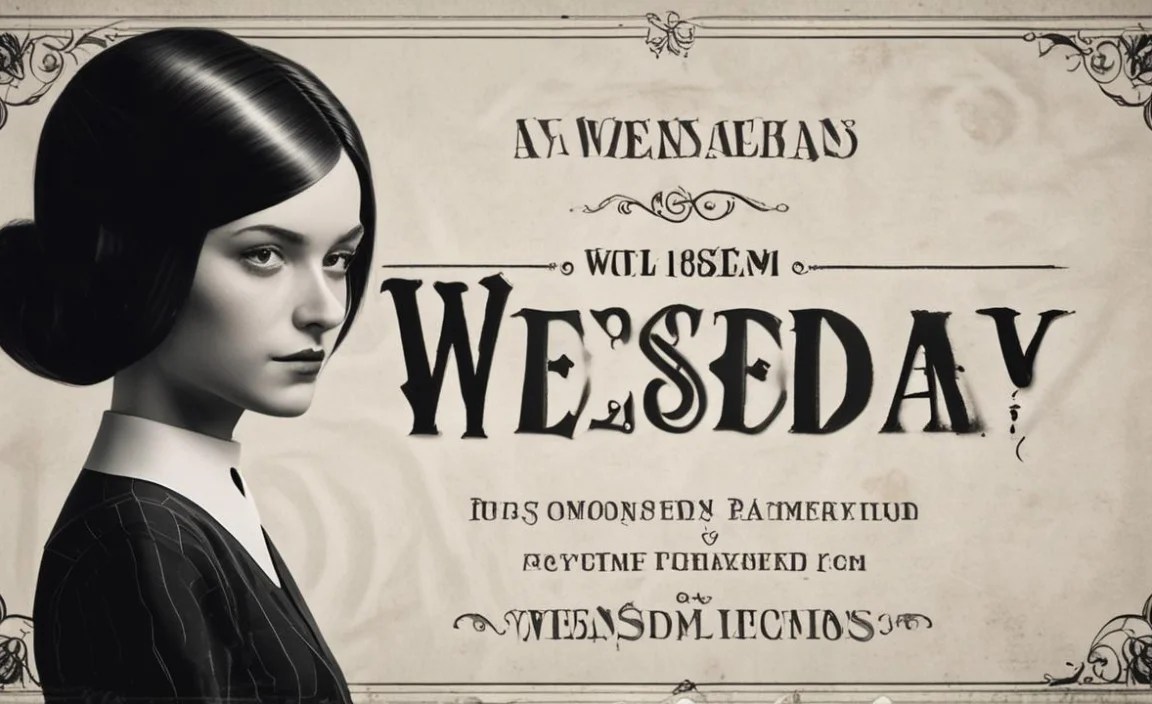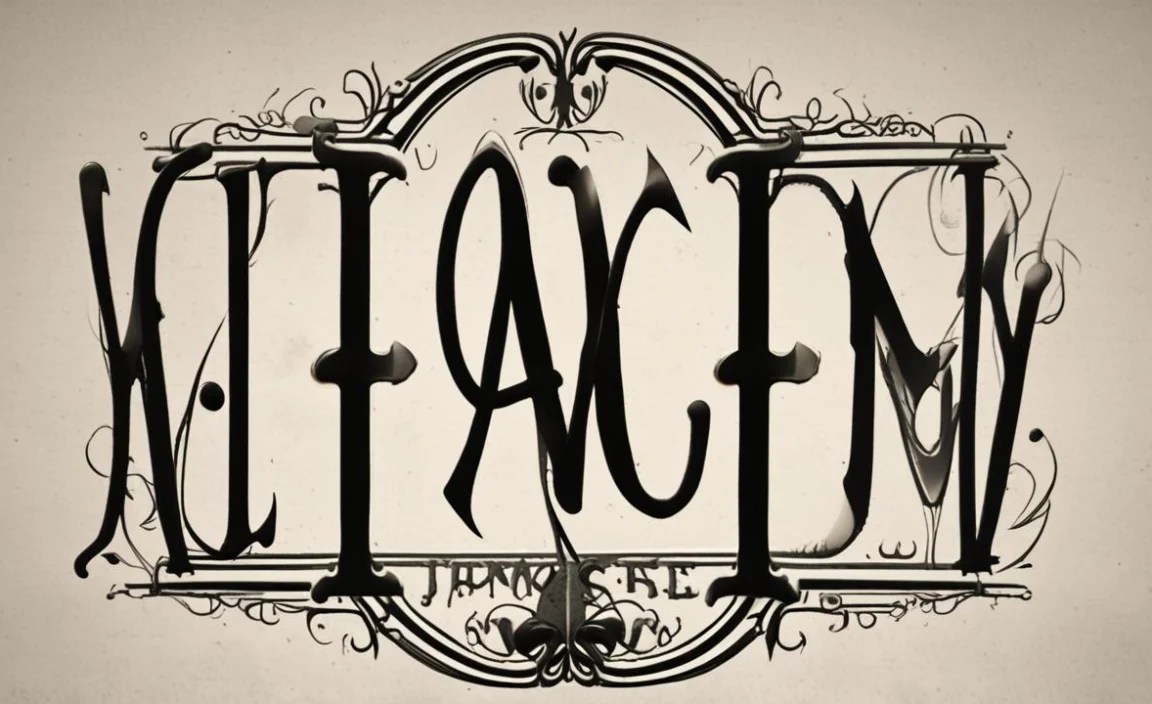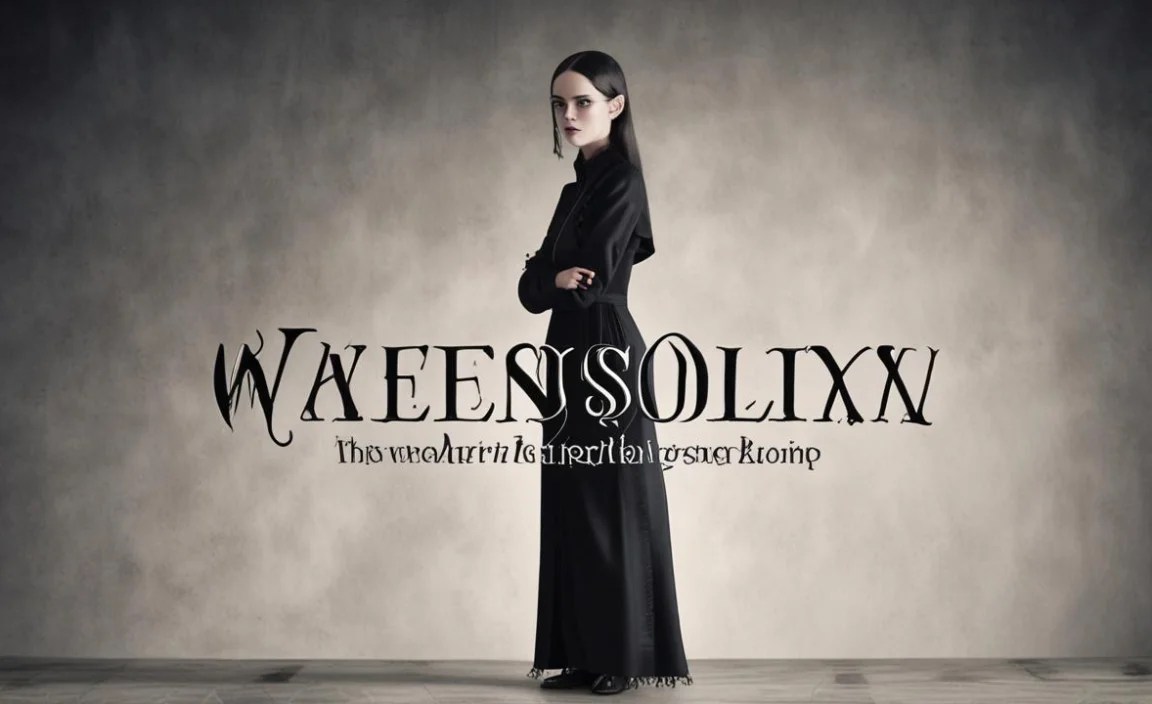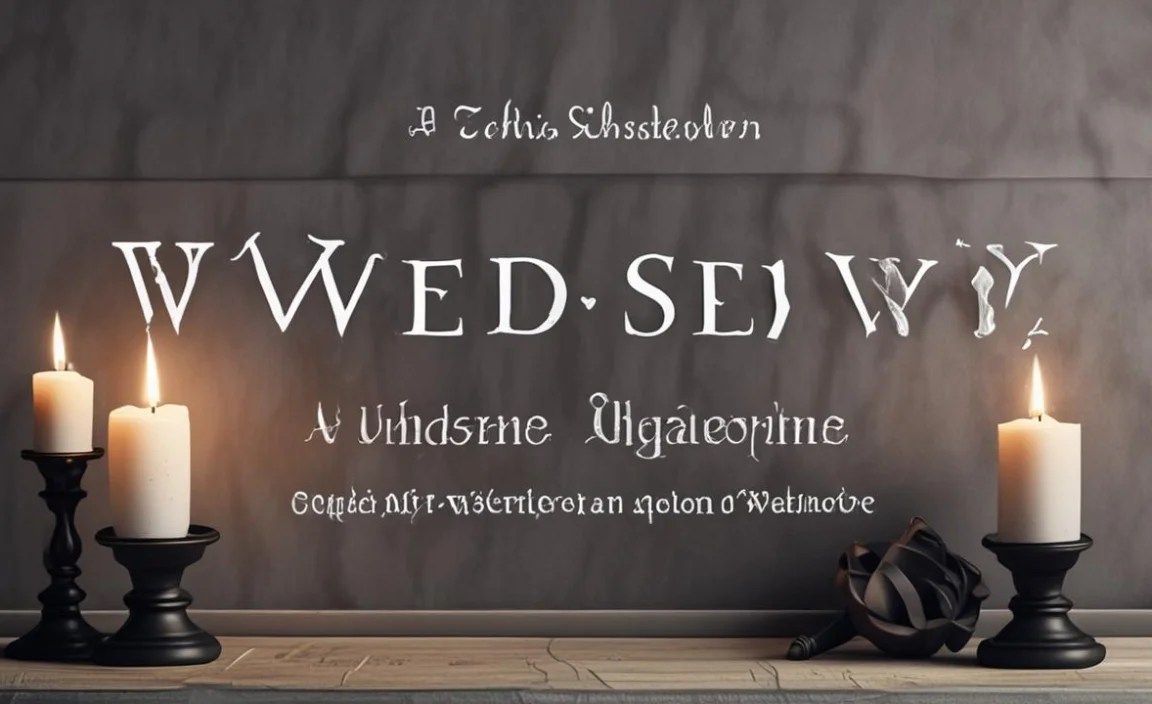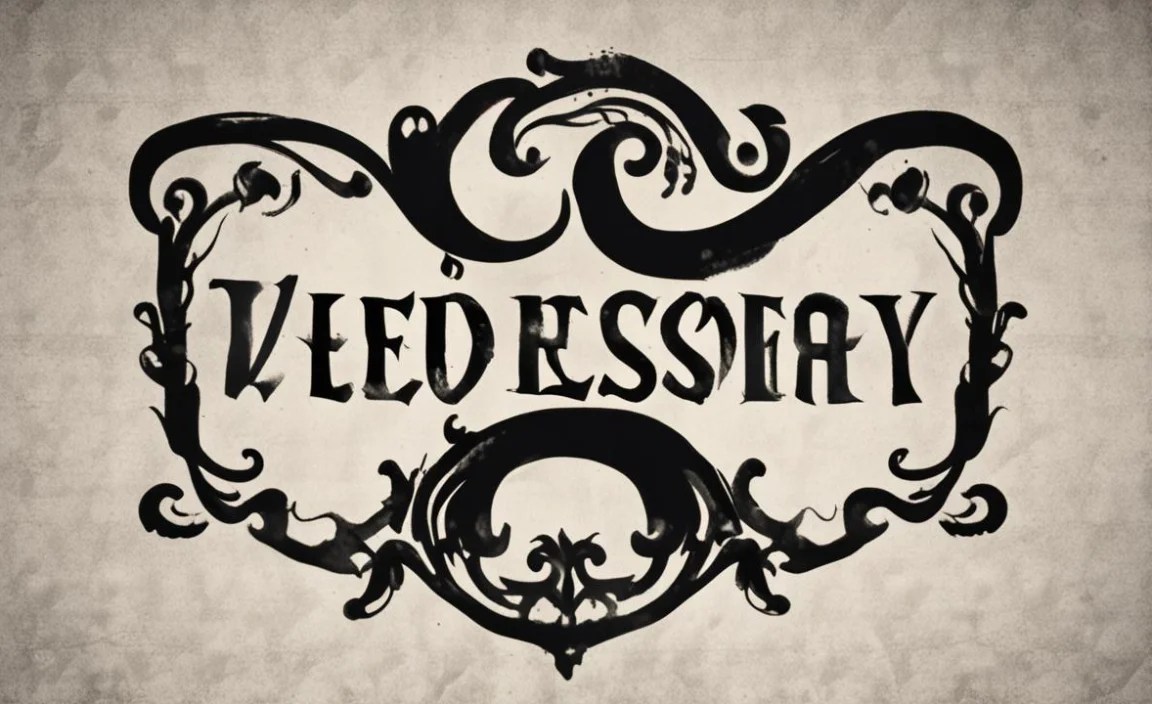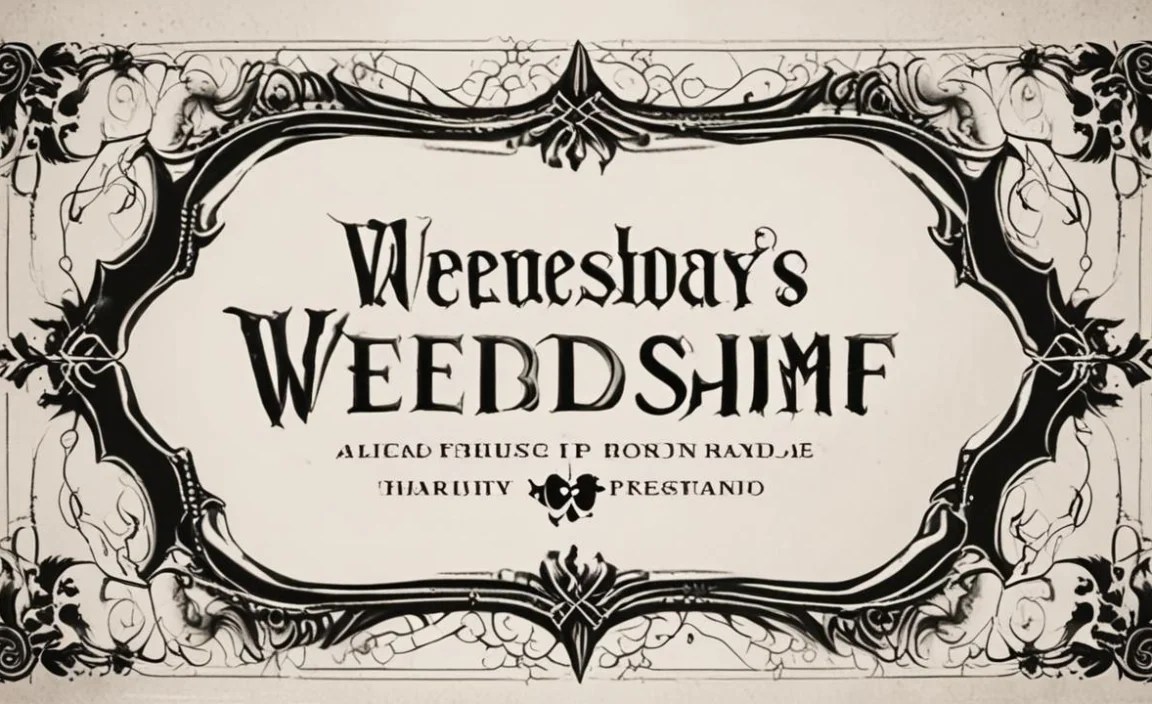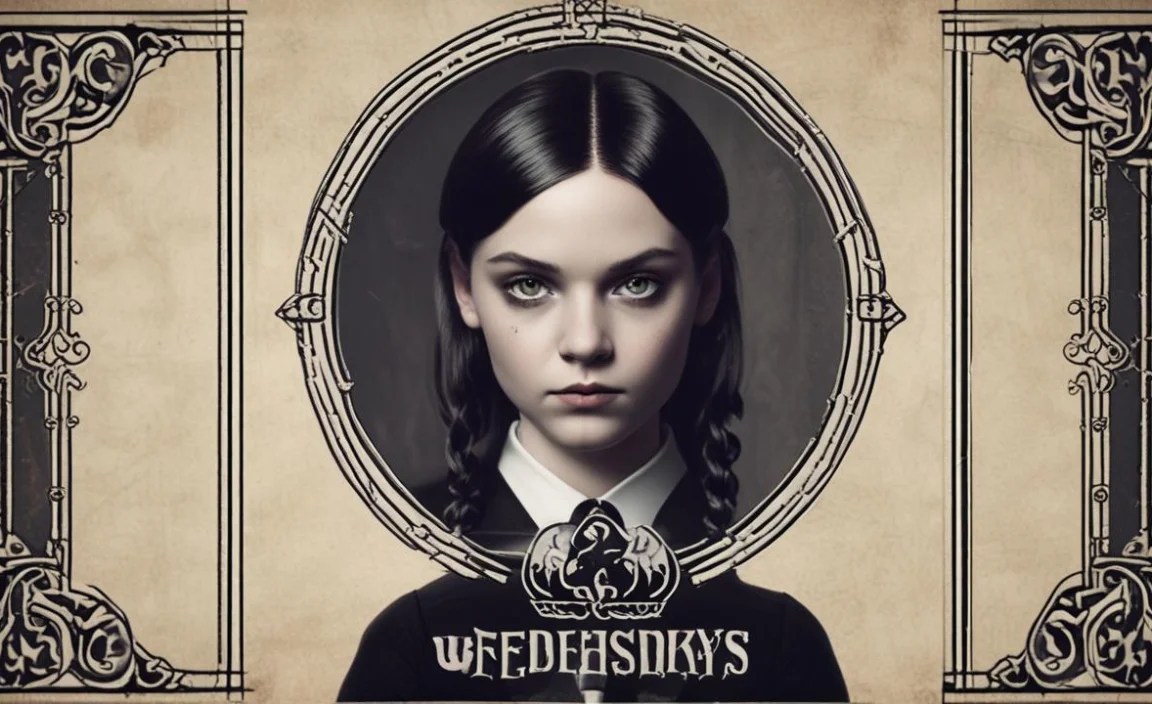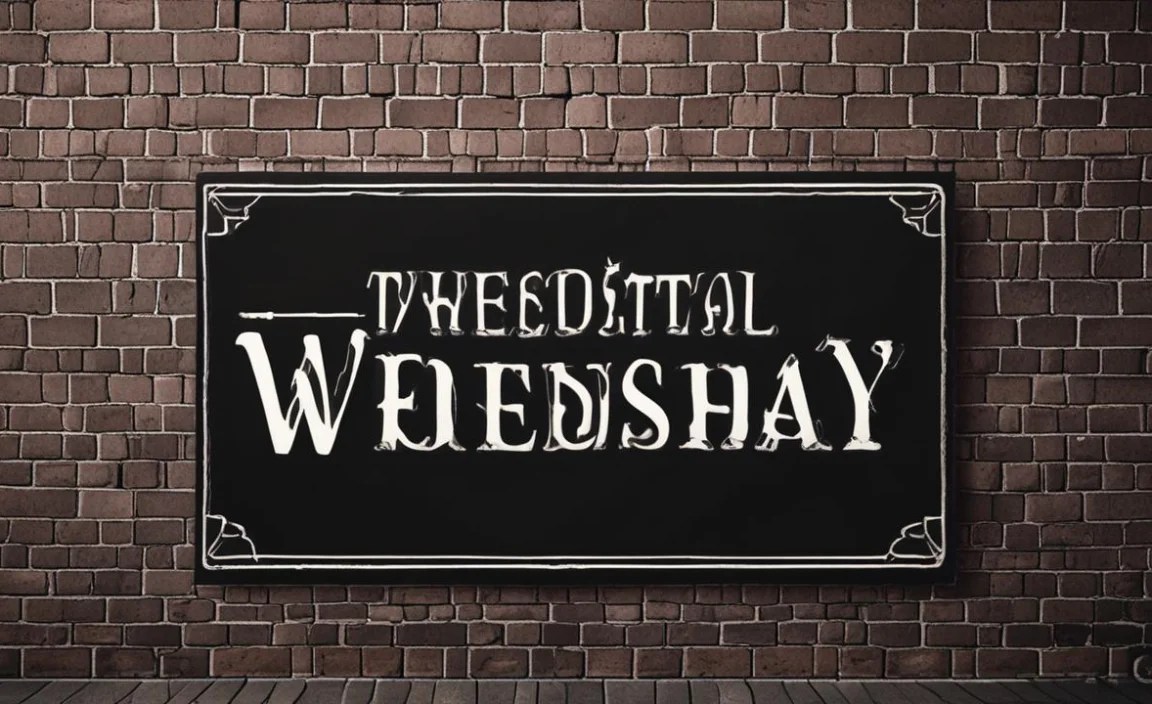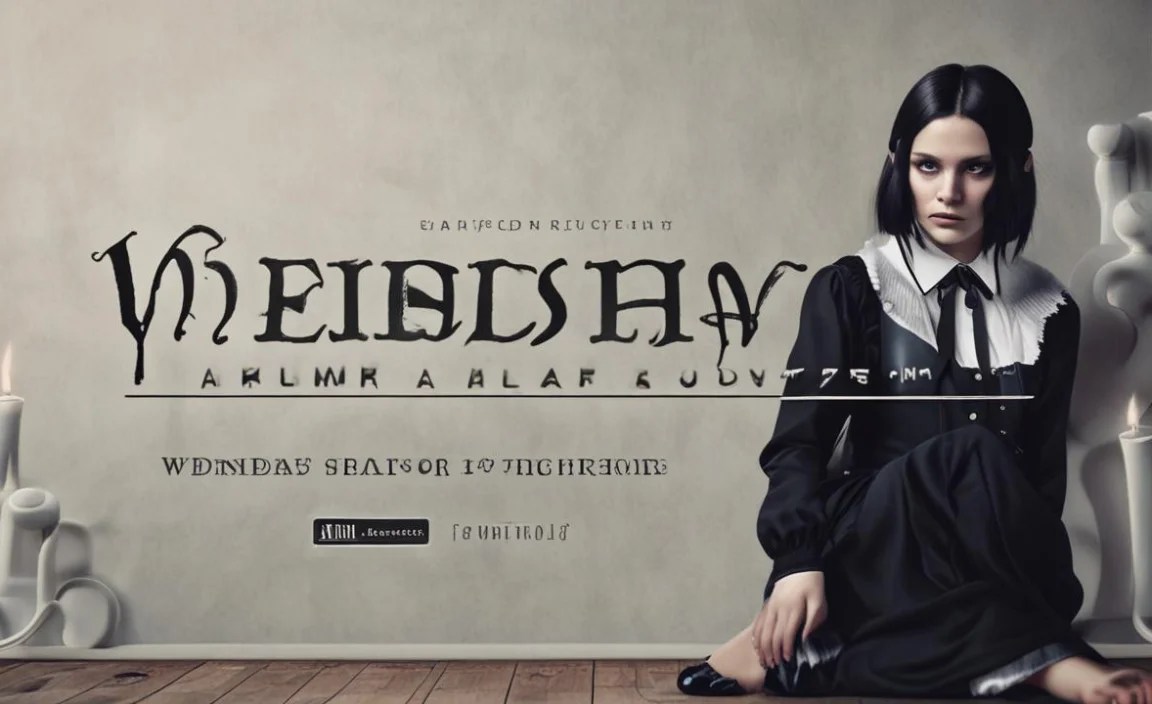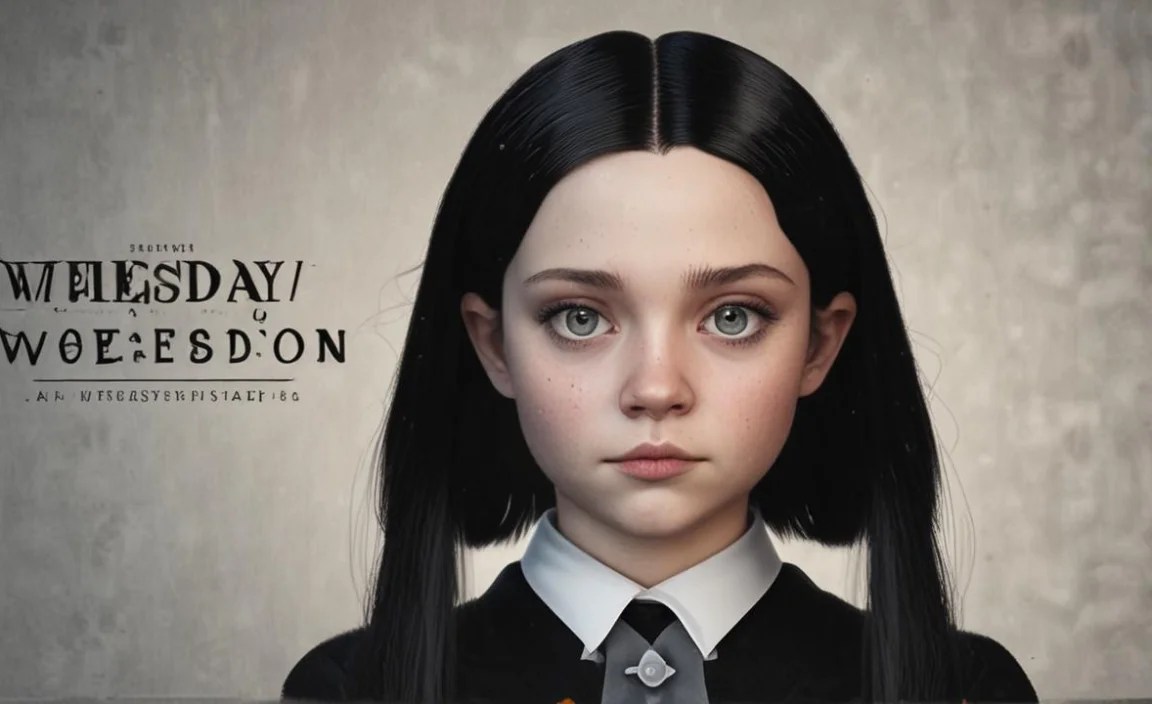
The Wednesday Font is a gothic-inspired serif typeface that draws its influence from the eerie and mysterious atmosphere of the popular Netflix series Wednesday.
Released in 2022, this font quickly became a fan favorite, especially among those who adore the Wednesday Addams character and the series’ dark, quirky vibe. Combining gothic and vintage typography elements, the font exudes a sense of mystery, making it ideal for branding, logos, and other creative design projects that require a touch of the unusual.
The Wednesday Font offers the perfect combination of elegance and eeriness to make Halloween-themed materials, design a vintage-inspired logo, or create modern gothic artwork.
Wednesday Font Information
| Feature | Details |
| Font Name | Wednesday Font (Inspired by the Netflix Series) |
| Style | Gothic Serif, Vintage |
| Designer | Charles Addams |
| Type | Display font |
Wednesday Font Family Includes
The Wednesday Font family primarily includes the Wednesday Regular style, capturing the essence of gothic and vintage influences. Its distinct style and versatility make it suitable for a wide variety of creative projects, from branding to product design.
Where To Use Wednesday Font
The Wednesday Font is perfect for design projects that have a dark, vintage, or gothic theme. Here are some common use cases:
Branding For Gothic Or Spooky-Themed Projects
The Wednesday Font works wonderfully for gothic, spooky, or retro-themed brands. It’s a great choice for creating memorable brand identities that evoke a mysterious or eerie vibe.
Logos: Eerie Or Vintage Brand Identity
Whether you’re designing a logo for a horror movie, a vintage-themed business, or any spooky brand, the Wednesday Font adds that special retro gothic touch. Its bold and mysterious aesthetic is perfect for brands with a dark edge.
Headers: Eye-Catching Website Titles And Printed Quotes
The font is ideal for website headers, printed quotes, and promotional materials. It makes an impactful statement whether used for online content or physical materials like posters and flyers.
Cards & Invitations: Halloween, Retro, Or Vintage-Inspired Occasions
The Wednesday Font is the perfect choice for themed parties or invitations, such as Halloween events or retro vintage-inspired gatherings. It adds a bold and eerie touch to invitations and event materials.
Printed Materials: Posters, Flyers, And Book Covers
This typeface shines in printed materials like book covers, flyers, and posters. Whether for mystery novels, horror events, or vintage advertising, it gives your designs a unique edge.
Product Packaging: Gothic Accents For Unique Branding
Use the Wednesday Font for product packaging in industries related to vintage products, gothic decor, or spooky themes. It adds a distinctive and memorable look to your brand.
SVG Projects: Ideal For Adobe Illustrator And Design Software
Best Font Pairing For Wednesday Font
While the Wednesday Font is powerful on its own, it pairs well with other fonts for a more balanced design. Here are some excellent pairings:
Wednesday Font & Lato
Combine Wednesday Font’s bold, mysterious look with Lato, a clean sans-serif font, for a dynamic contrast. This pairing works great for branding, websites, and event materials, providing readability and clarity alongside the gothic aesthetics.
Wednesday Font & Montserrat
For a modern yet edgy look, combine Wednesday Font with Montserrat, a geometric sans-serif that adds a contemporary, professional feel. This pairing can be used for website headings, logos, and advertisements.
Wednesday Font & Script Fonts
Pair Wednesday Font with script fonts like Dancing Script for a creative, elegant design. This combination works beautifully for Halloween invitations, gothic cards, and vintage greeting cards, offering both playfulness and sophistication.